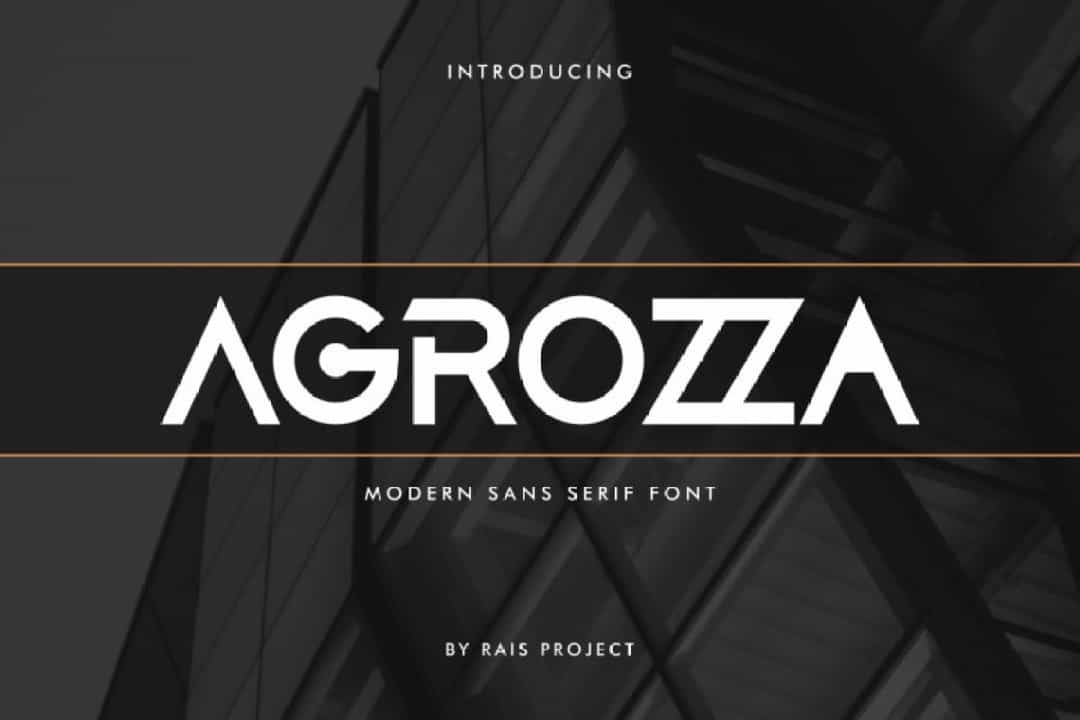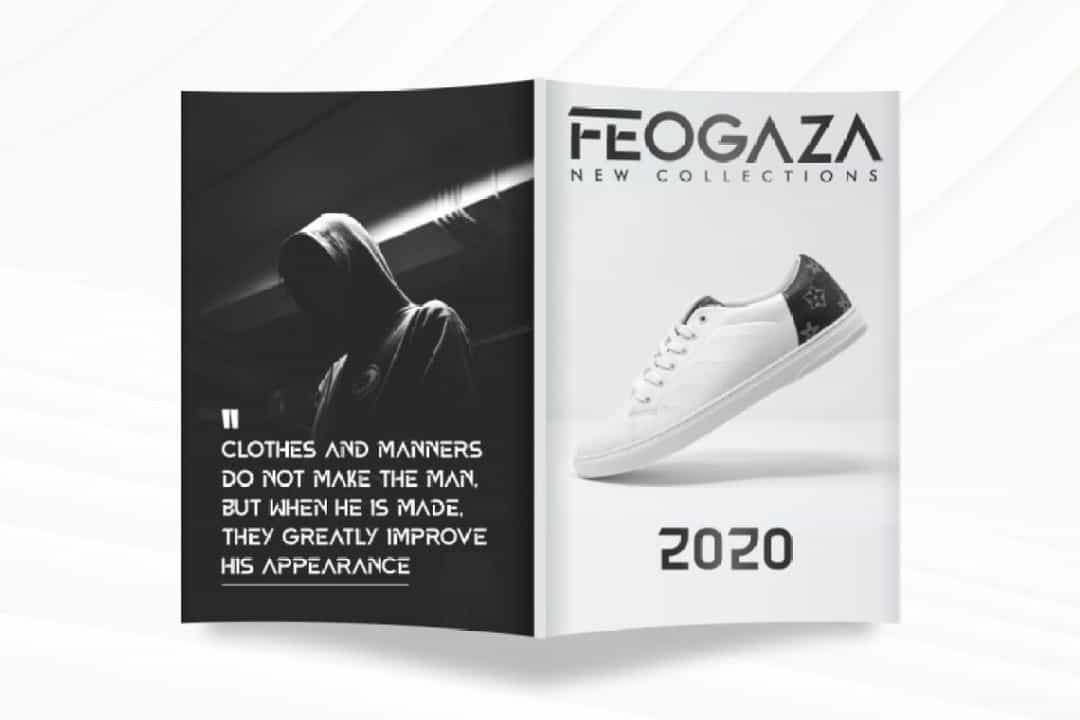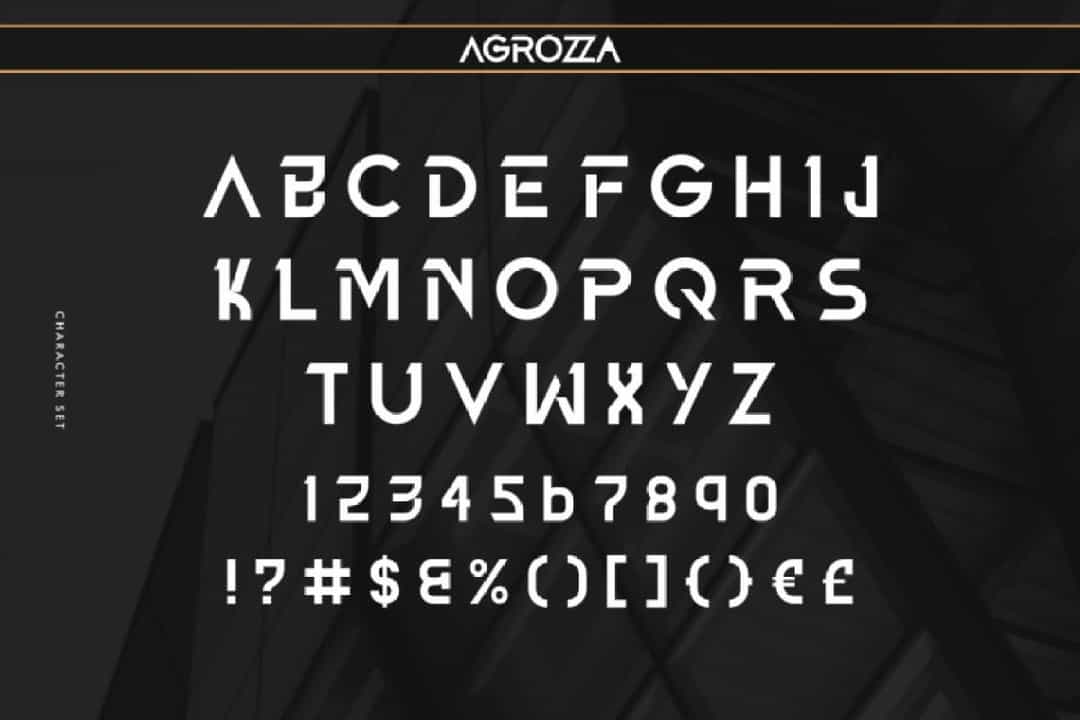
Discover AGROZZA Font, part of the Sans Serif Display Stencil Army Basic Personal collection—a versatile and unique font perfect for adding a personal touch to your projects. Download it for free and enjoy crafting designs with style, from invitations to social media posts. This font is available exclusively for personal use, giving you the freedom to create without limits. Unlock your creativity with AGROZZA Font today!
AGROZZA Font is a remote sans serif stencil army display typeface designed for your specific needs of headlines, promotional events branding, advertisements magazines signs invitations stationery and also for social media posts labeling social posts or any other task that demands a unique design.